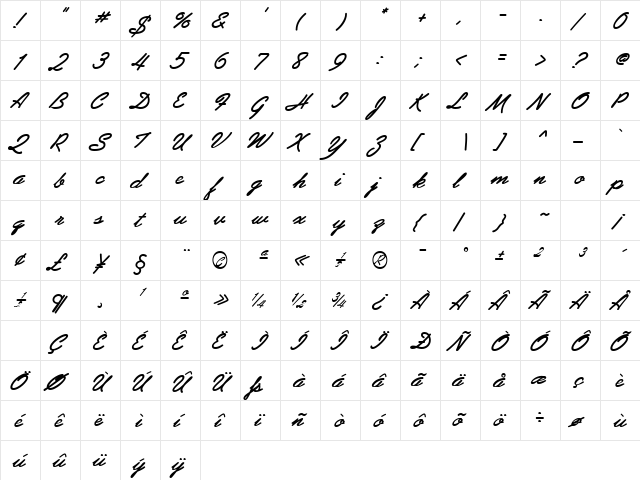
Abrazo Script SSi Bold Italic Font Preview
Design Context for Abrazo Script SSi Typeface
Abrazo Script SSi flows with the natural rhythm of handwritten lettering, making it ideal for designs that call for warmth and personal expression. The heavy weight commands attention and anchors typographic hierarchies.
Font Pairing: Combine Abrazo Script SSi with a simple geometric sans for maximum contrast — the tension between flowing curves and clean structure is a classic typographic pairing.
Pro Tip: Pair Abrazo Script SSi with a clean sans-serif for supporting text. The contrast between fluid script and geometric structure creates an elegant typographic hierarchy.